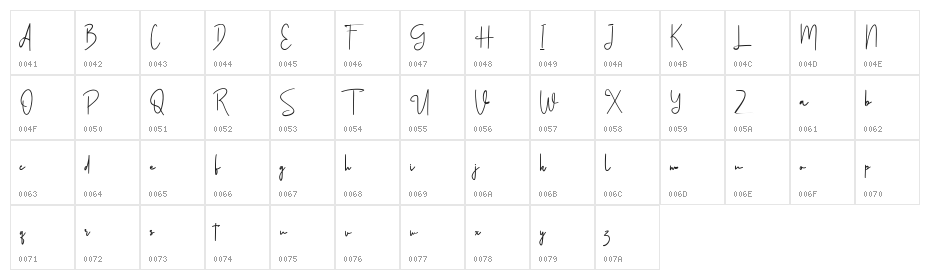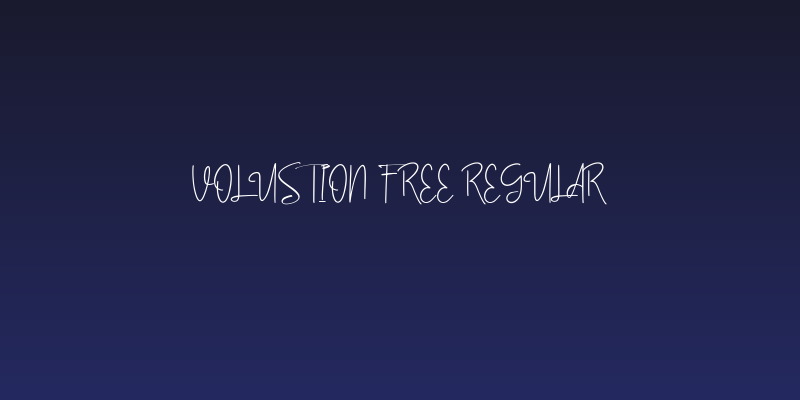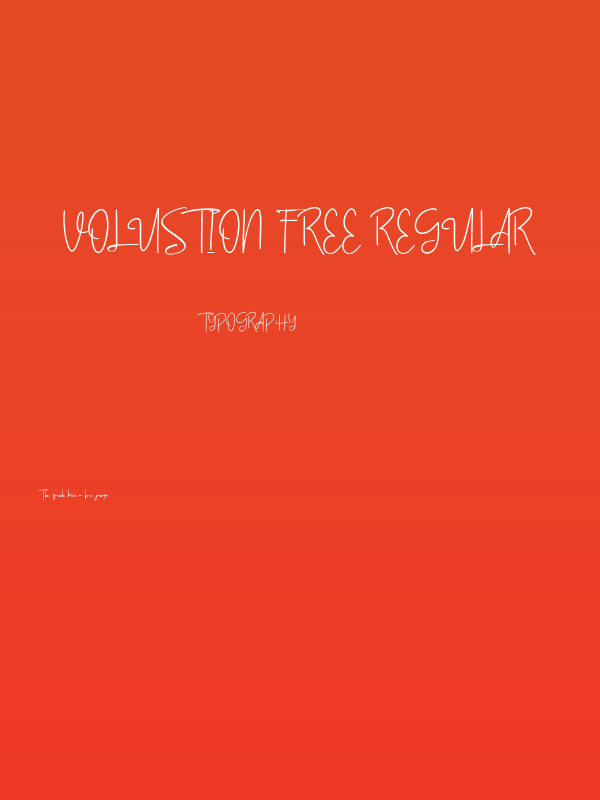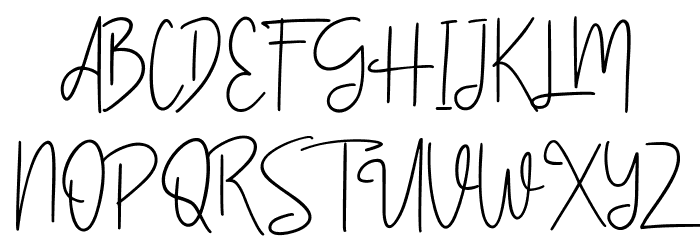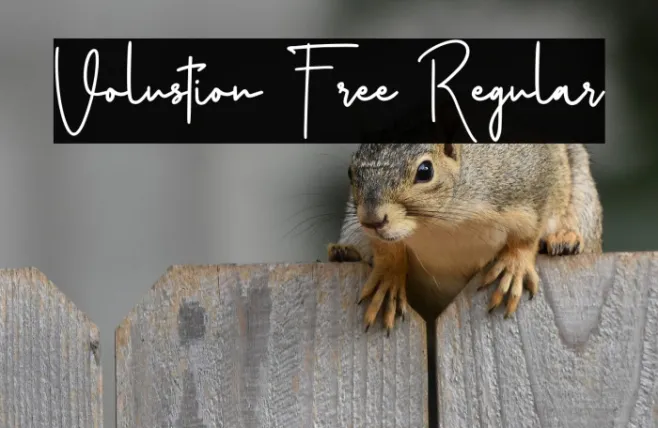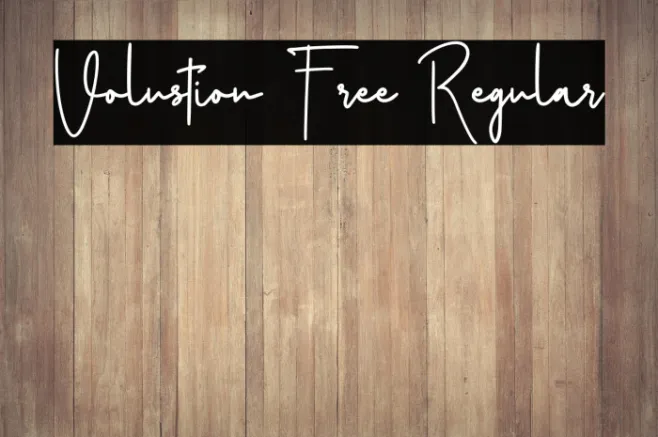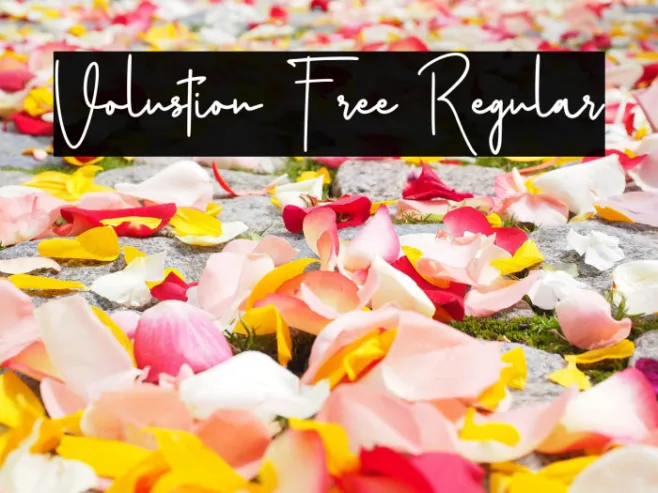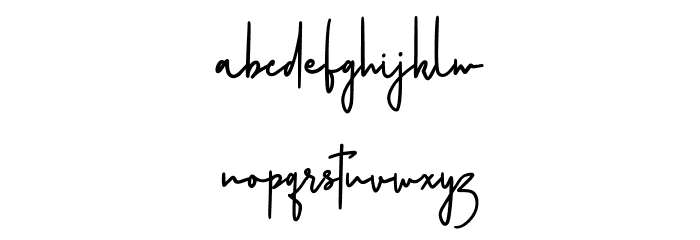
Volustion Free Regular Font
Volustion Free Regular Description
This font features a playful and whimsical handwritten style, characterized by its elongated and slightly irregular letterforms. The uppercase letters are tall and narrow, with a distinctive flair that adds a sense of movement and energy. The lowercase letters maintain a consistent style, with a casual and relaxed appearance. The overall design is light and airy, making it suitable for creative and informal projects. The font includes a full set of uppercase and lowercase letters, numerals, and a selection of special characters, ensuring versatility in various design applications.
| Proposed Projects | Ideal for greeting cards, invitations, playful branding, and creative social media graphics. |